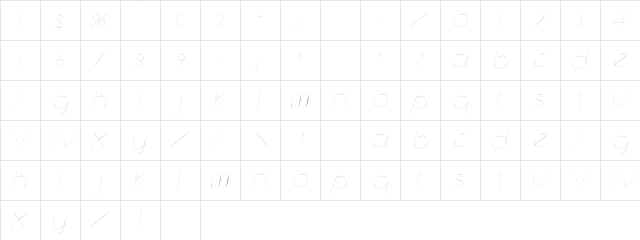
ZoobeSSK Italic
Design Context for ZoobeSSK Typeface
ZoobeSSK takes a measured approach to typography — its balanced proportions and neutral character make it a reliable workhorse for both digital and print work. Its italic angle brings a sense of urgency and motion to the letterforms.
Pro Tip: Try ZoobeSSK for annotation and caption copy alongside an upright companion — the contrast in angle creates a dynamic but ordered typographic system.